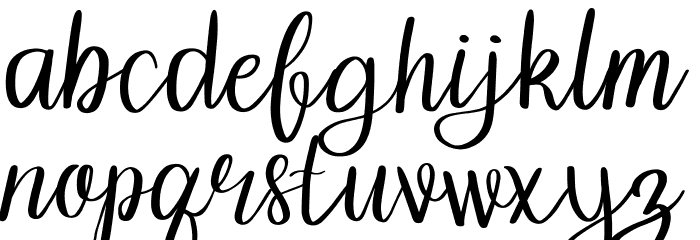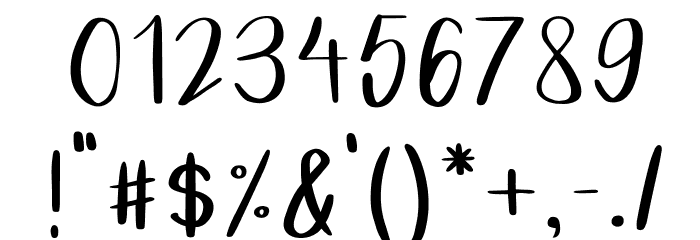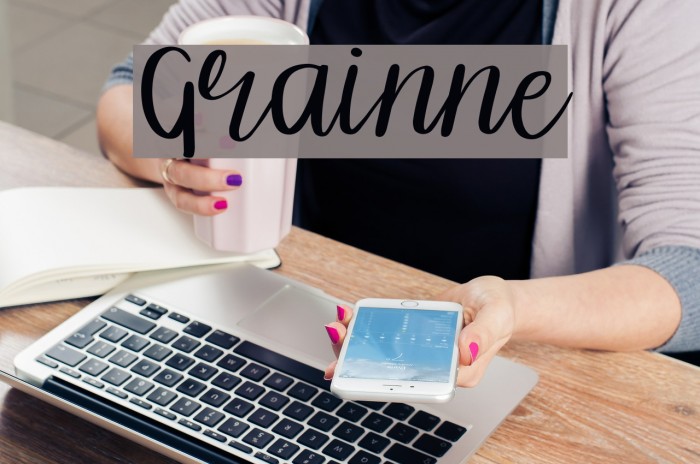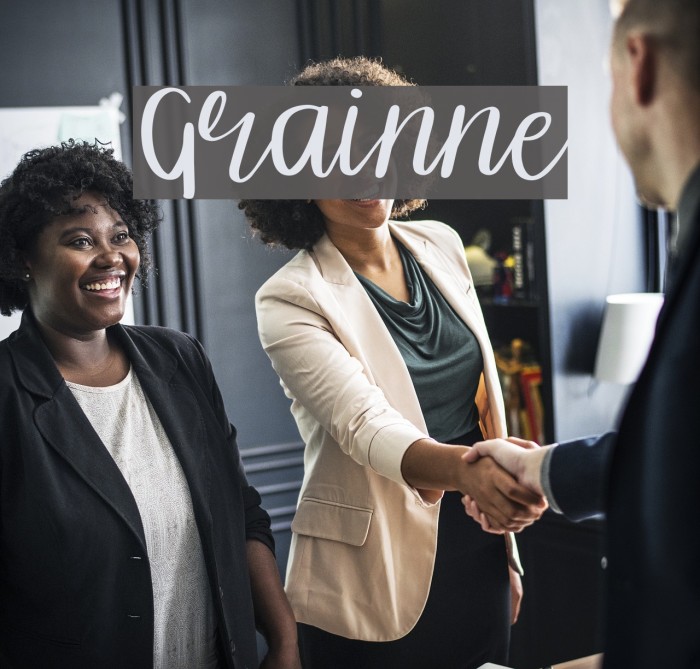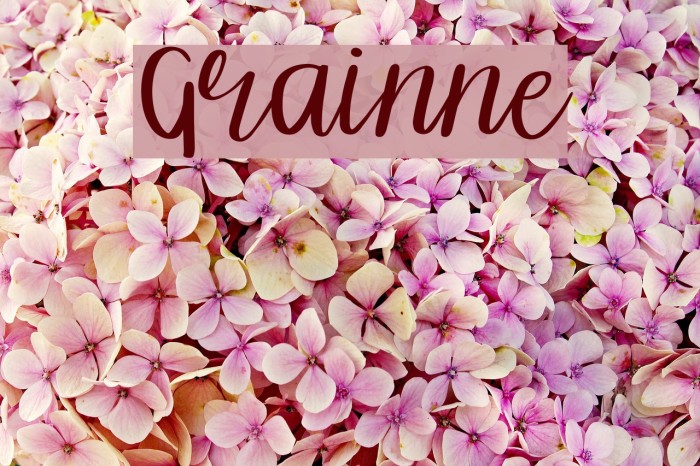
Grainne Font
This font features a playful and energetic script style with a handwritten appearance. The uppercase letters are bold and slightly condensed, giving them a strong presence, while the lowercase letters are more fluid and connected, adding a sense of movement and personality. The numbers are clear and legible, maintaining the same playful style. Special characters are well-integrated, ensuring consistency throughout the font. The overall design is modern and informal, making it suitable for projects that require a personal touch.
A playful, handwritten script font with bold uppercase and fluid lowercase letters.
- Proposed Projects: Ideal for greeting cards, invitations, personal branding, and creative projects that require a friendly and approachable feel.
- Use Case: Logos, Headlines, Invitations